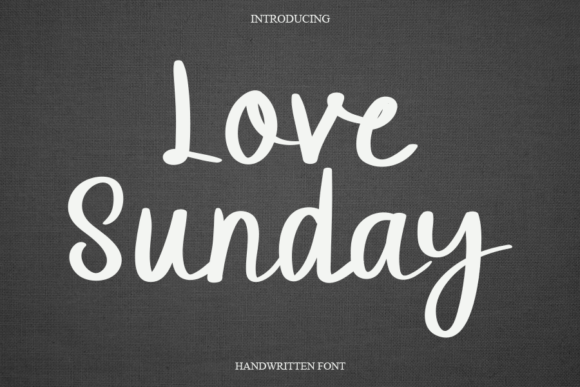
Embrace the charm and elegance of Love Sunday, a captivating script font that exudes a warm and inviting allure. This beautiful creation by HENGKIPRAMUDI is a true gem for those seeking a touch of sophistication and creativity in their designs.
Immerse yourself in the graceful strokes and delicate curves of Love Sunday, a font that effortlessly captures the essence of handwritten elegance. Its flowing lines and subtle variations add a personal touch that makes it stand out from the crowd. Whether you're crafting wedding invitations, heartfelt letters, or eye-catching social media posts, Love Sunday will effortlessly elevate your creations.
With its playful yet refined character, Love Sunday sparks joy and ignites imagination. Its versatility makes it an ideal choice for a wide range of projects. From enchanting logos that resonate with your brand's unique personality to heartfelt greeting cards that convey your warmest sentiments, Love Sunday seamlessly adapts to your creative vision.
Designed with love and attention to detail, Love Sunday is not just a font; it's an experience. It invites you to explore your creativity and express your individuality in every stroke. Whether you're a seasoned designer or just starting your creative journey, Love Sunday is the perfect companion for your artistic endeavors.